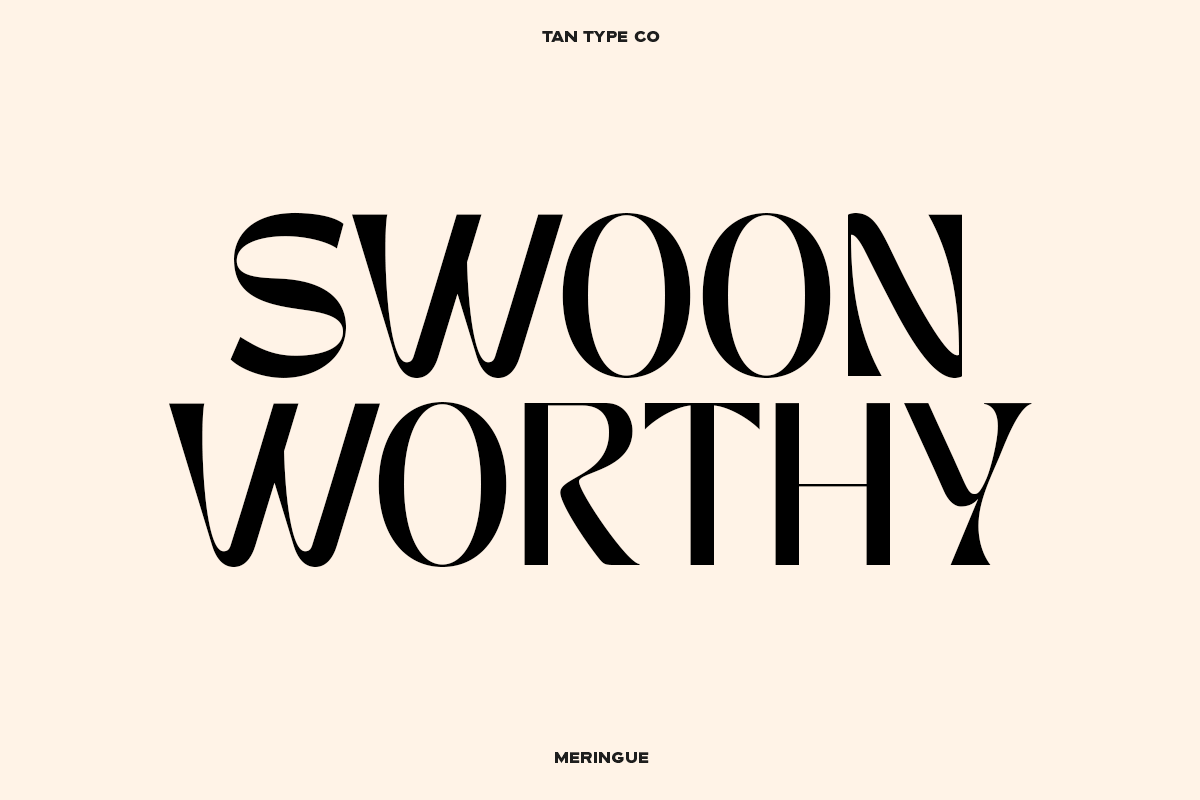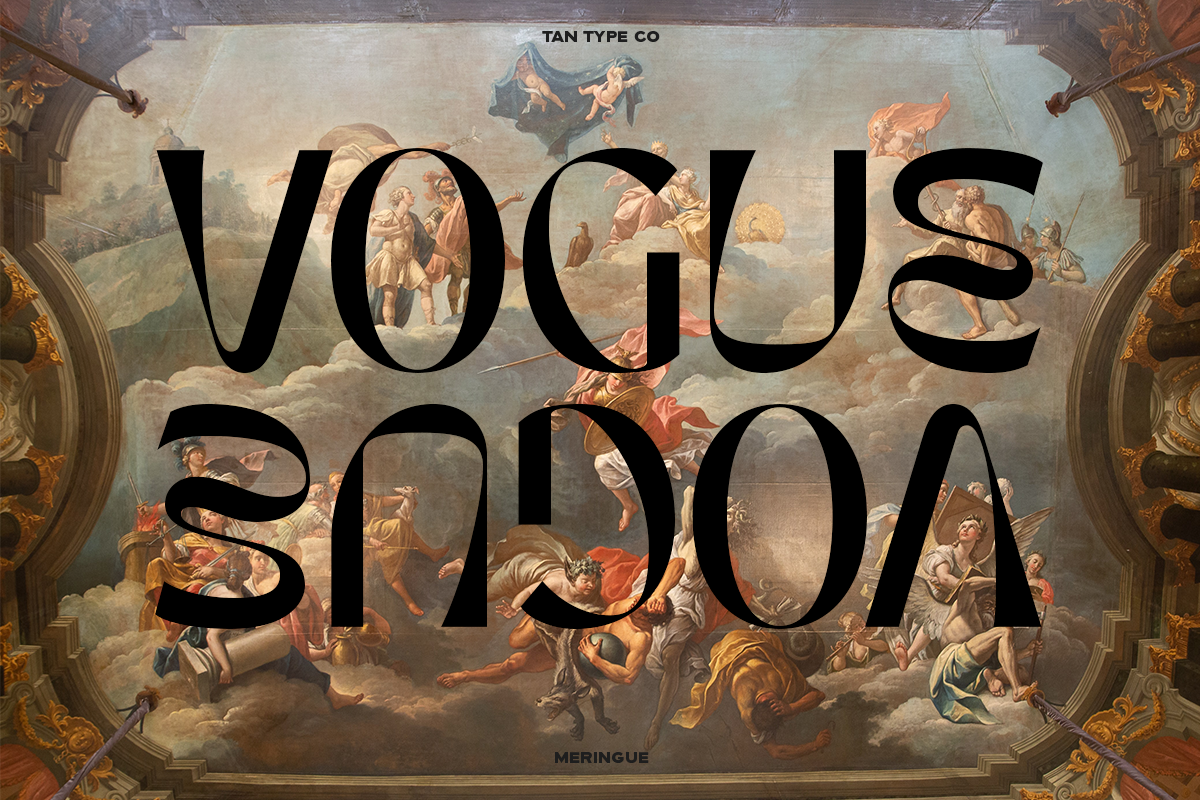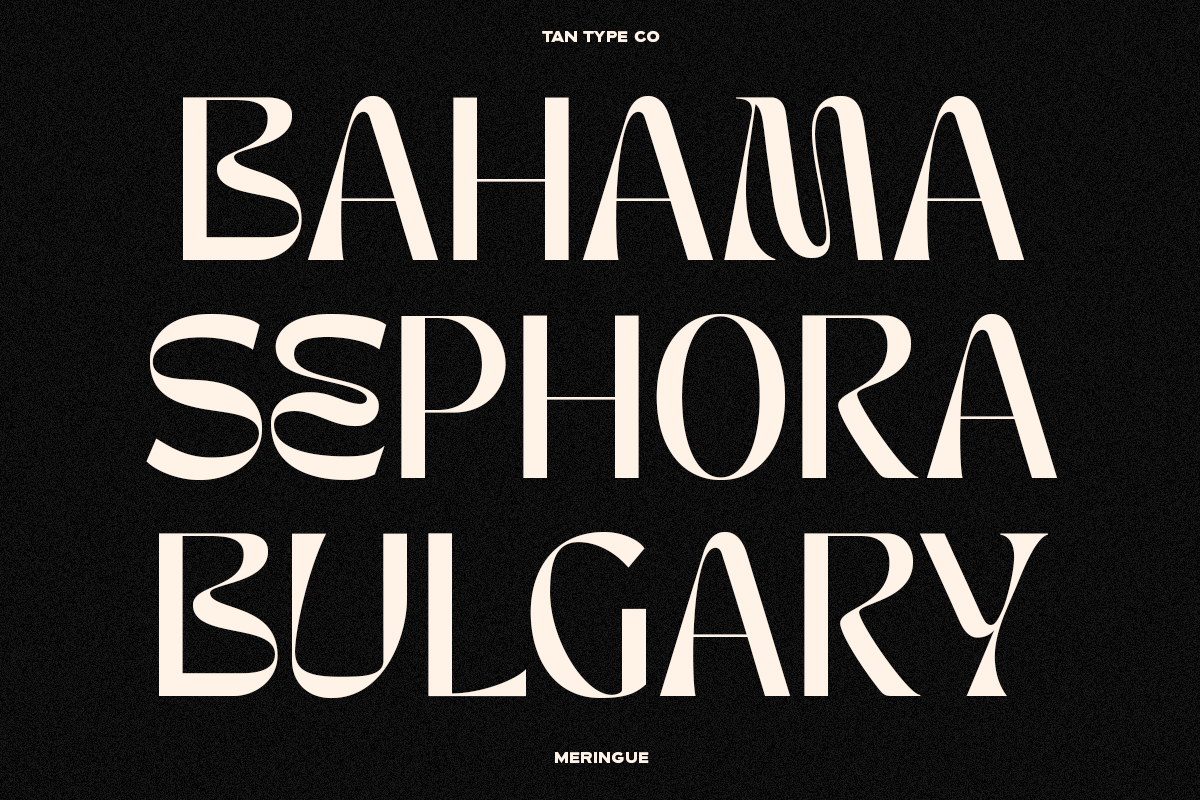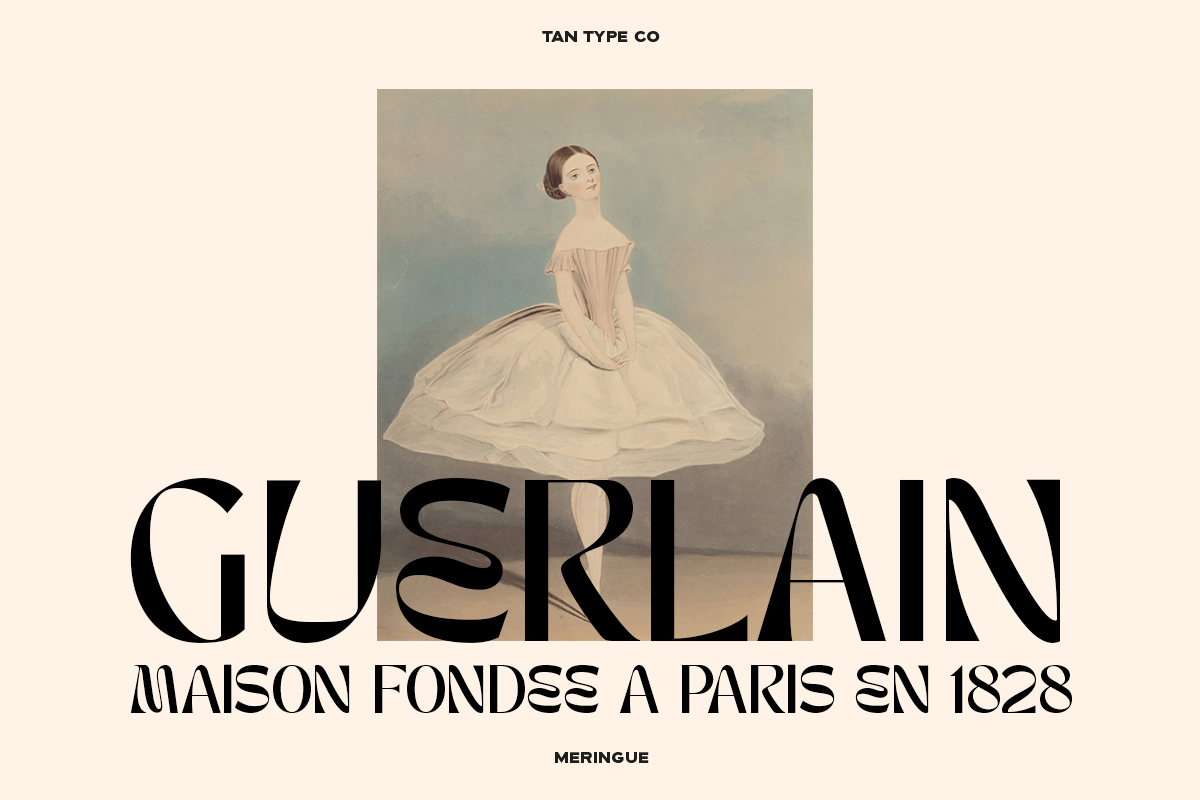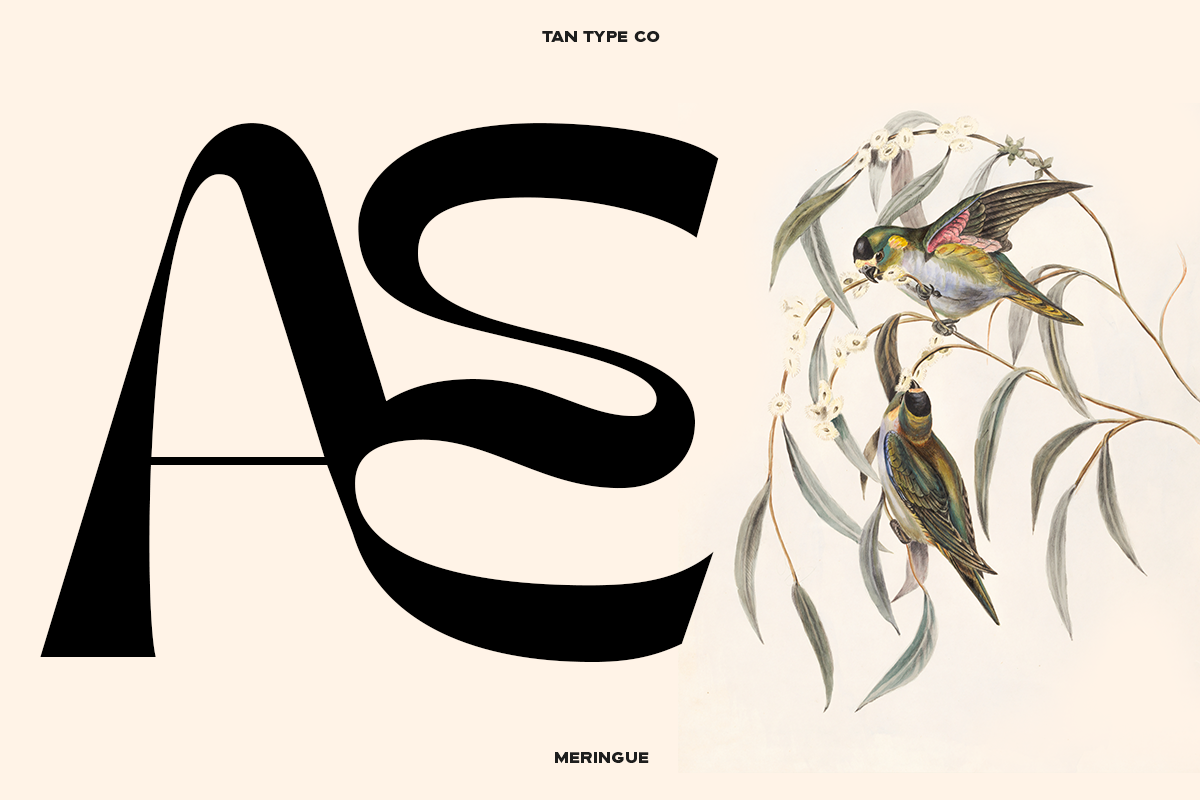
Tan - Meringue Font
Tan Meringue Font
Tan Meringue is a retro display typeface. Its curves give it a fun personality. Perfect if you want to add character to your project(s). Created for poster, web design, branding, illustrations, badges, and some other works.